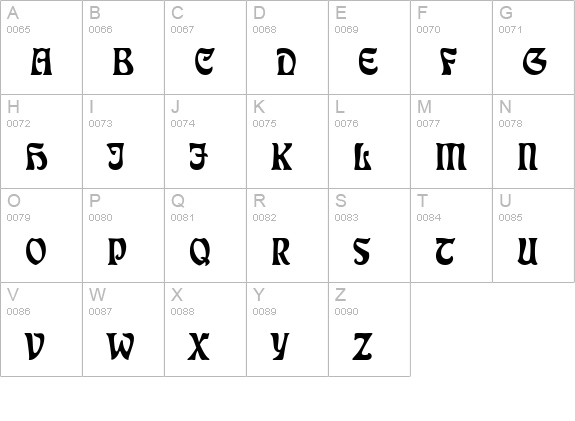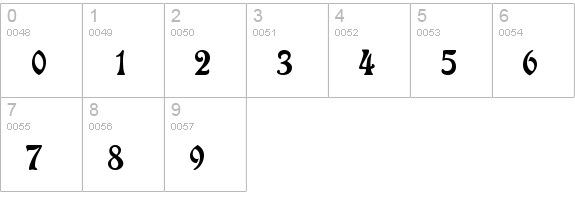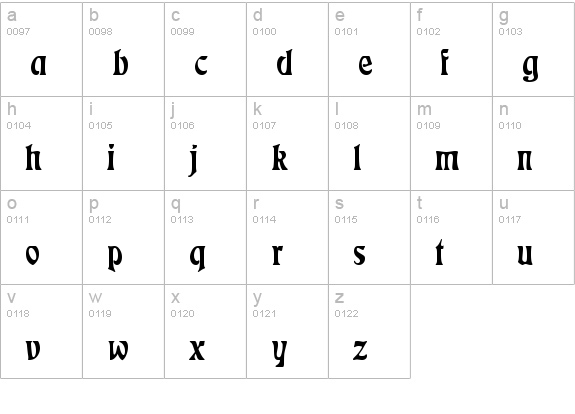
Etienne-Regular Font Details
Etienne-Regular is the standard, neutral variant in the Etienne typeface family \xE2\x80\x94 well suited to general body text, paragraphs, and standard typographic work.
Etienne-Regular is a versatile and elegant font that exudes sophistication and style. With its clean lines and classic design, this typeface is suitable for a wide range of projects, from branding to editorial design. The balance between its modern and timeless characteristics makes it a popular choice among designers looking to convey a sense of refinement in their work. What makes Etienne-Regular even more appealing is the fact that it is free to download at FontsMarket.com. This means that you can easily access this high-quality font without any cost, making it a valuable addition to your font library. Whether you're working on a print design project or creating digital content, Etienne-Regular offers the perfect blend of functionality and aesthetics to elevate your work to the next level.